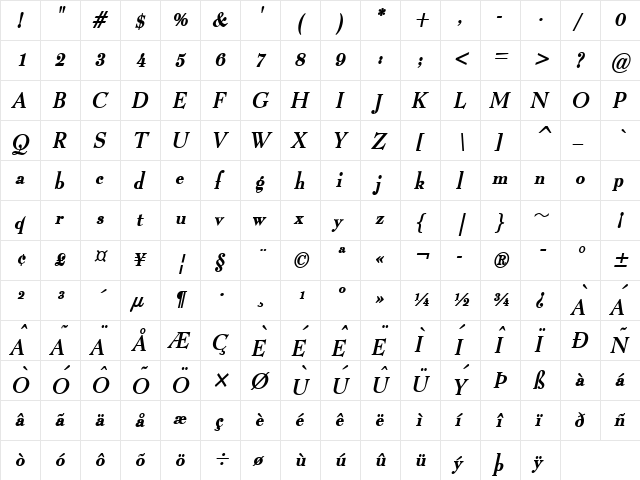
Luciano Condensed BoldItalic Font Preview
Design Context for Luciano Condensed Typeface
Luciano Condensed takes a measured approach to typography — its balanced proportions and neutral character make it a reliable workhorse for both digital and print work. The dynamic lean of this cut emphasises speed and emphasis in any layout. Its bold stroke weight gives it real presence on the page. Its narrow stance lets it pack a punch even in space-constrained designs.
Pro Tip: Try Luciano Condensed for annotation and caption copy alongside an upright companion — the contrast in angle creates a dynamic but ordered typographic system.